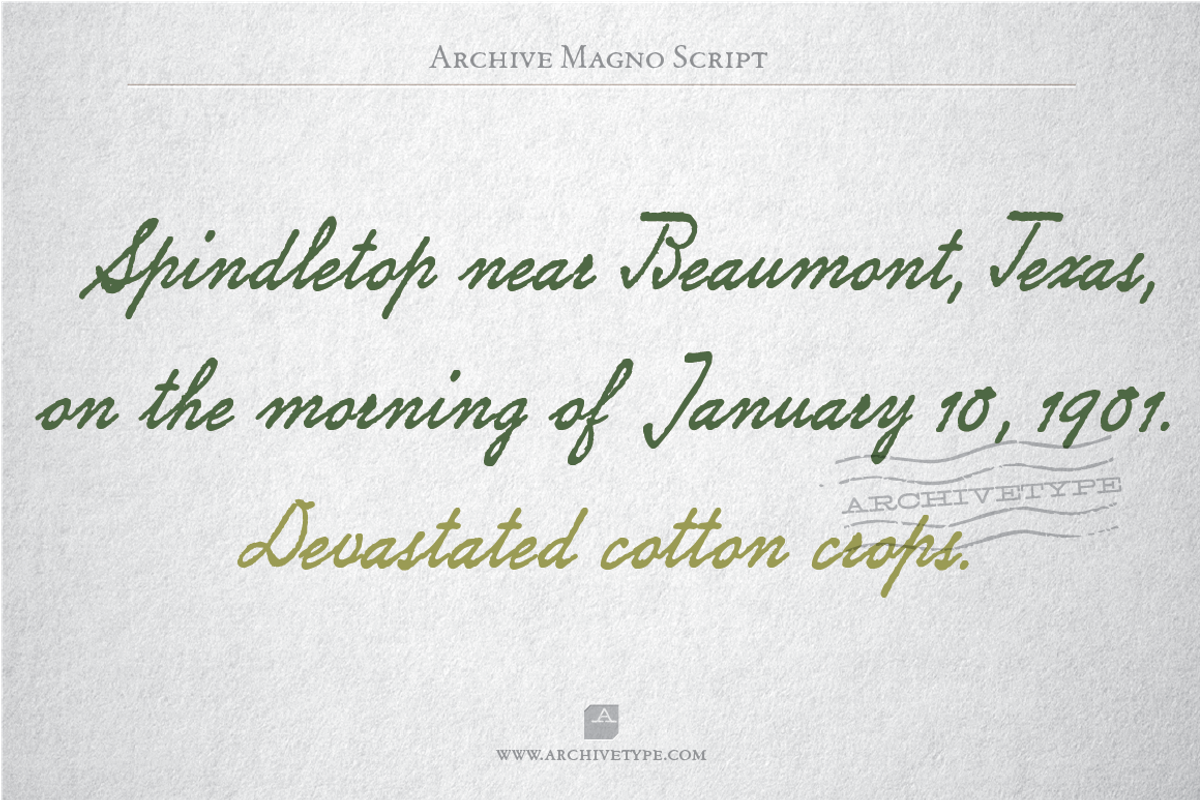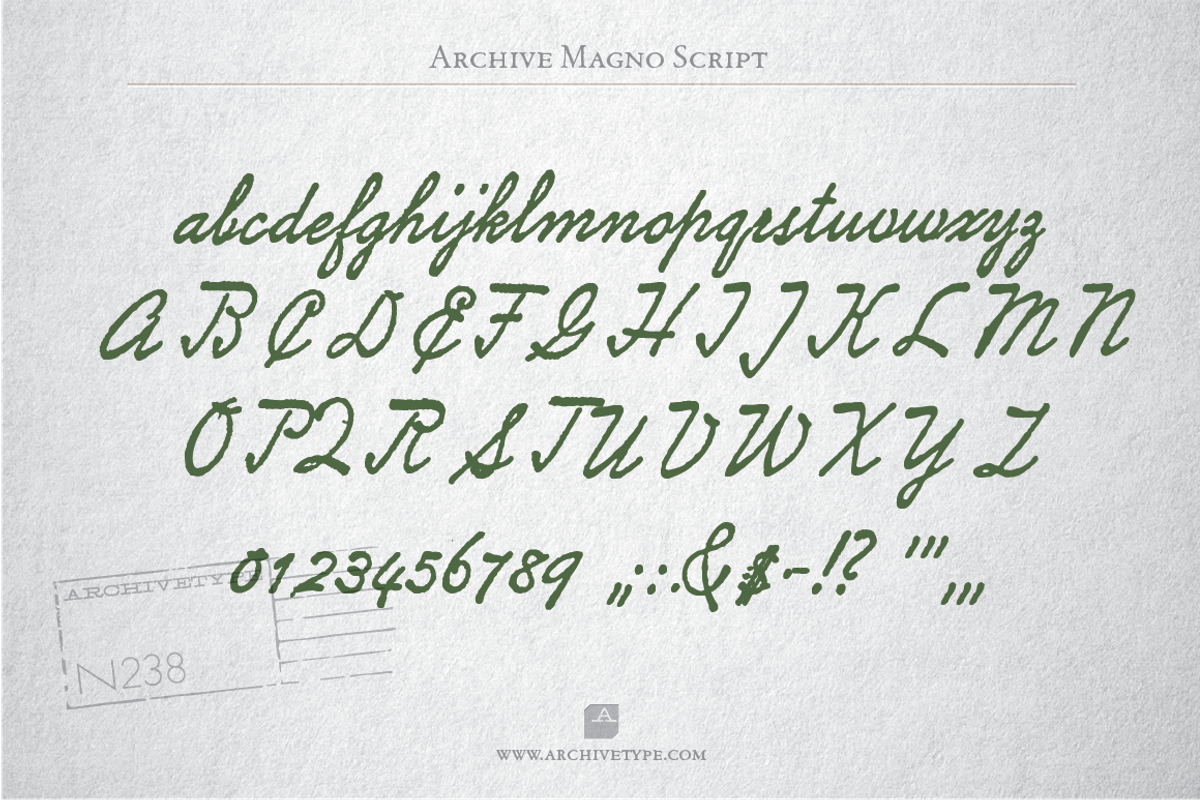
Archive Magno Script
Archive Magno Script by Archive Type Fonts is a font selected for branding, posters, packaging, typography.
- In order to preserve the original feel of typefaces, no additional characters were added to originals, therefore, most of the fonts consist
- Upper case letters, lower case letters, numerals and basic punctuation.
Why Archive Magno Script is worth a look
Archive Magno Script by Archive Type Fonts fits naturally into Branding, posters, packaging, typography.